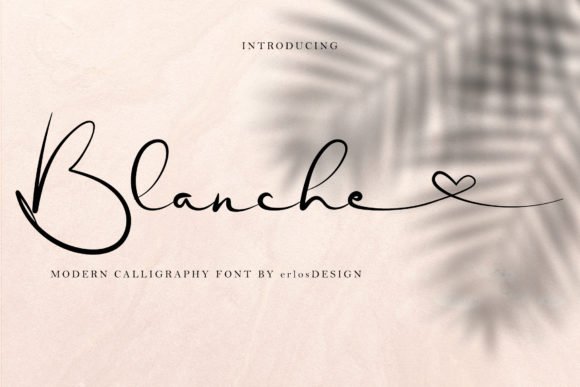
The Art of Elegant Typography: Discovering the Beauty of Blanche Font
Have you ever sat at your desk, staring at a blank page, trying to bring your creative vision to life? The cursor blinks, taunting you to start, but the words just won’t flow. It’s in these moments of creative frustration that a perfectly chosen font can be the difference between inspiration and despair.
Enter Blanche Font, a delicate and elegant handwritten font that brings a touch of sophistication to any design. With its beautiful, well-balanced characters and gorgeous glyphs, Blanche Font is the perfect addition to any creative project. Its smooth lines and stunning alternates make it a versatile choice that can elevate even the most mundane ideas into stunning works of art.
Blanche Font Key Features
- Font Family: Blanche is a script font, ideal for creative and elegant designs.
- Size: Blanche font is available in multiple sizes, ranging from 8pt to 72pt, to suit different design requirements.
- Resolution: Supports high-resolution designs, making it suitable for print materials and digital displays.
- Unique Characteristics: Blanche features a flowing, handwritten style with swashes and connecting strokes, adding a touch of sophistication to designs.
- Font Style: Available in regular, italic, and bold styles to cater to diverse design needs.
Blanche Font Review
As a designer, I was excited to try out the Blanche Font. Overall, I think it’s a solid choice, but it’s not without its limitations.
- The Blanche Font has a beautiful, elegant feel to it. The curves are smooth and flowing, making it perfect for headings and titles.
- The font is highly legible, even at smaller sizes. This makes it a great choice for body text, especially in print materials.
- The Blanche Font comes in a range of weights and styles, giving you a lot of flexibility when designing with it.
- The Blanche Font can feel a bit too ornate for some designs. If you’re going for a more modern or minimalist look, this font might not be the best choice.
- The font’s high x-height can make it feel a bit clumsy at smaller sizes. Be careful not to use it too small, or it can start to look messy.
- The Blanche Font is not as versatile as some other fonts on the market. It’s best suited for elegant, high-end designs, rather than more casual or playful projects.
The Blanche Font is a great choice for designers who need a elegant, sophisticated font for their projects. While it has some limitations, it’s a solid choice for headings and titles, and is highly legible at smaller sizes. Just be mindful of its ornate feel and high x-height when using it in your designs.
Blanche Font is particularly useful in Canva for creating elegant and sophisticated designs, such as wedding invitations and luxury brand materials.
Blanche Font is ideal for use in Adobe Photoshop and Illustrator for creating high-end graphics and illustrations.
Blanche Font is suitable for use in PowerPoint and Word for creating professional-looking presentations and documents.
Blanche Font is commonly used in the following applications:
- Luxury brand materials and packaging
- High-end graphics and illustrations
- Professional presentations and documents
By following these steps and using Blanche Font in the right applications, you can create stunning and sophisticated designs that stand out from the crowd.
Alternatives to Blanche Font for Designers1. Great Vibes Font
Great Vibes Font is a modern, elegant script font ideal for headings, quotes, and titles. It is perfect for designers who want to add a touch of sophistication and playfulness to their designs. Great Vibes Font is more versatile than Blanche Font, with a wider range of ligatures and swashes.
What is the recommended usage for the Blanche Font family?
The Blanche Font family is designed for digital use and is suitable for a wide range of applications, including:
- Mobile app design
- Print design and publishing
- Graphic design and branding